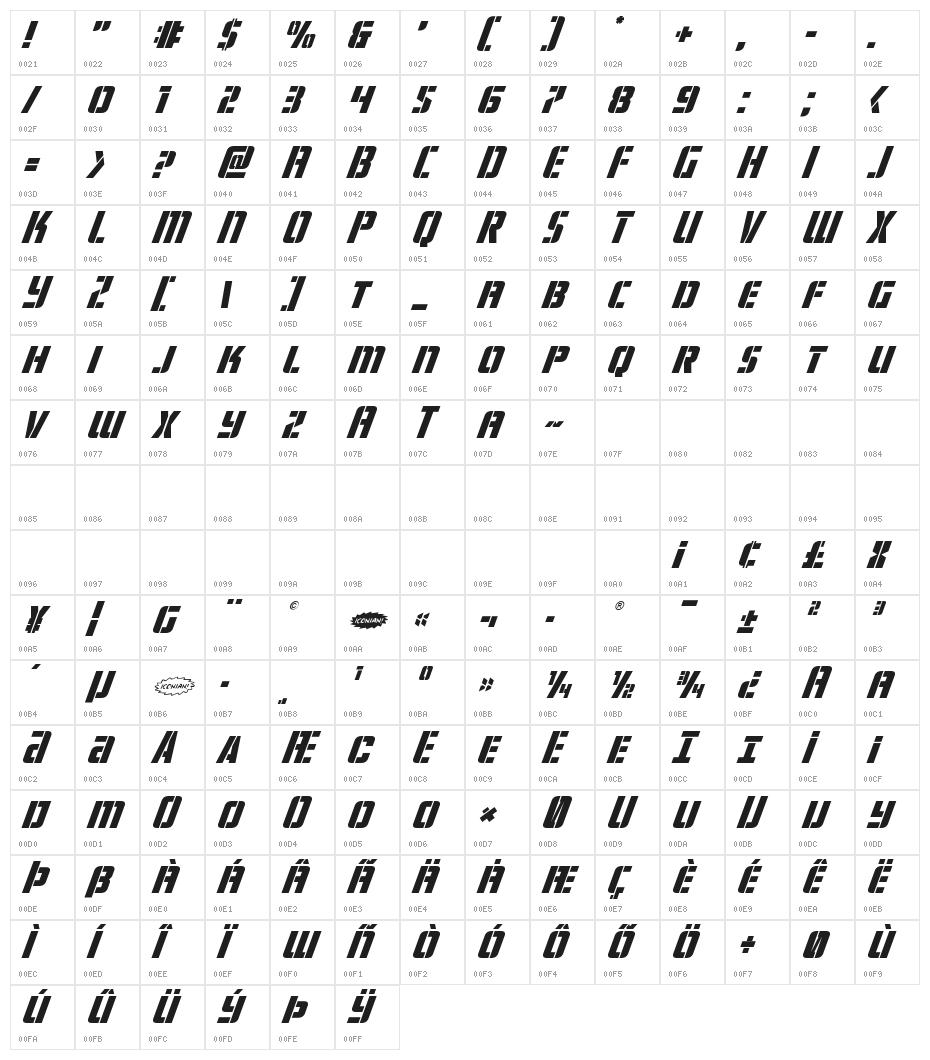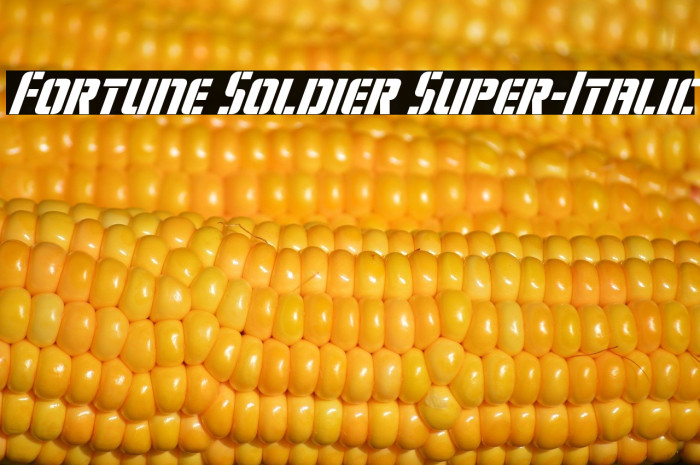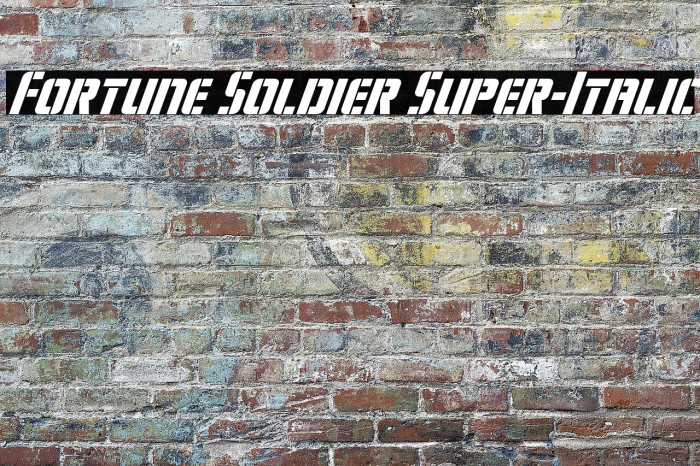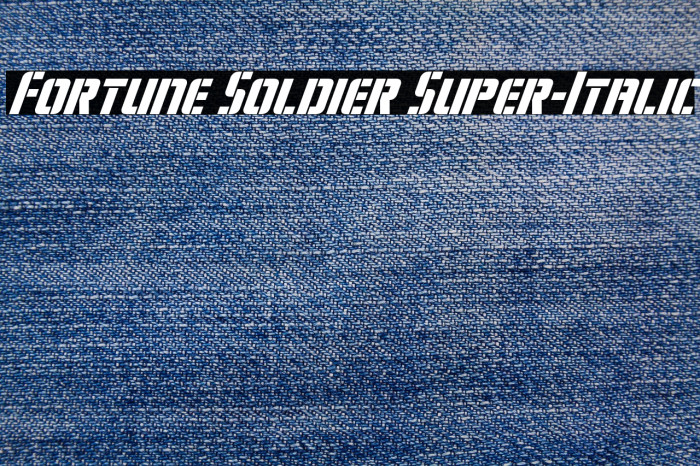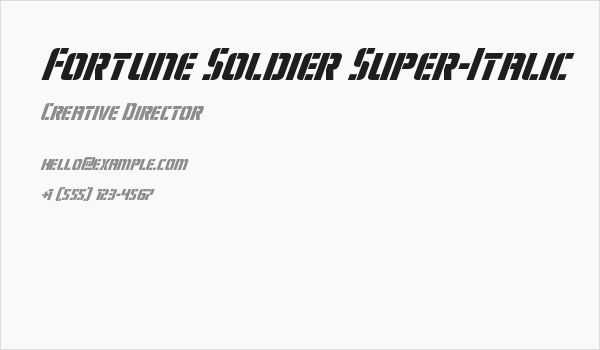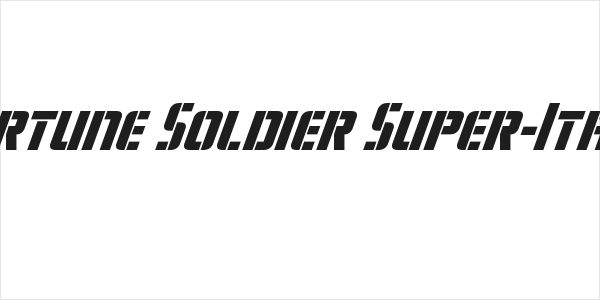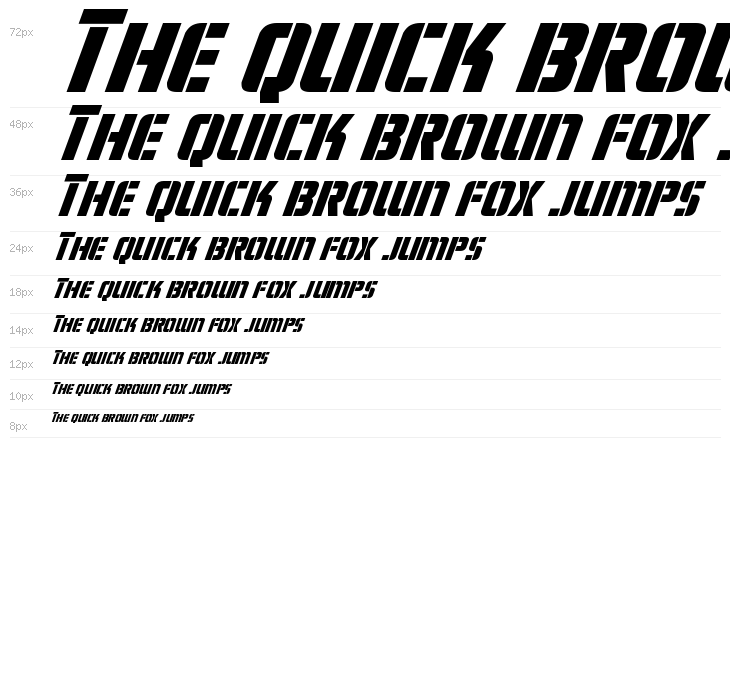
Fortune Soldier Super-Italic Font
Fortune Soldier Super-Italic Description
This font features a bold and dynamic style with a strong italic slant, giving it a sense of motion and urgency. The characters are wide and blocky, with a consistent thickness throughout, contributing to a robust and impactful appearance. The angular cuts and sharp edges enhance its modern and aggressive look, making it suitable for attention-grabbing designs. The uppercase and lowercase letters maintain a uniform height, while the numerals and special characters are designed to match the boldness of the alphabet. The font's overall design is cohesive, with a focus on strength and visibility.